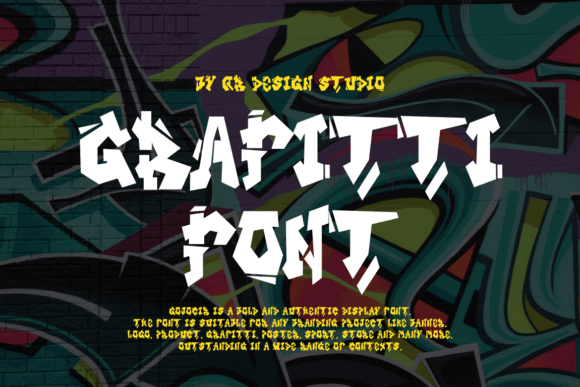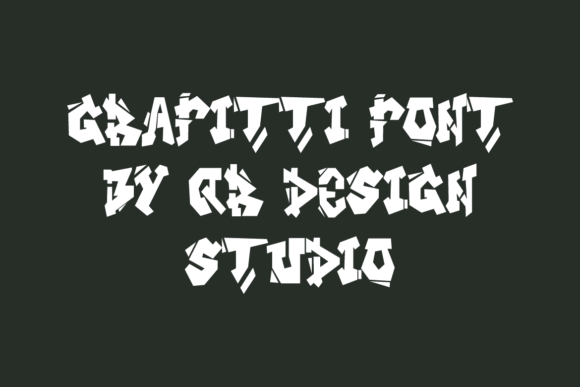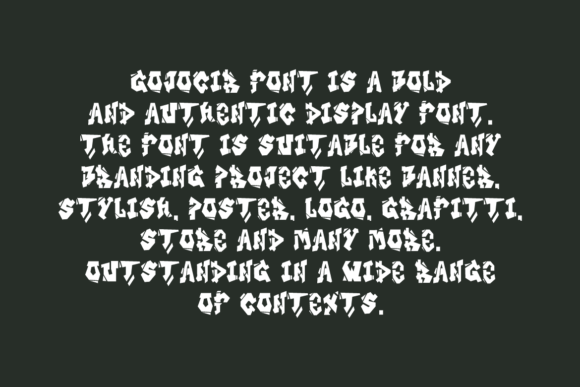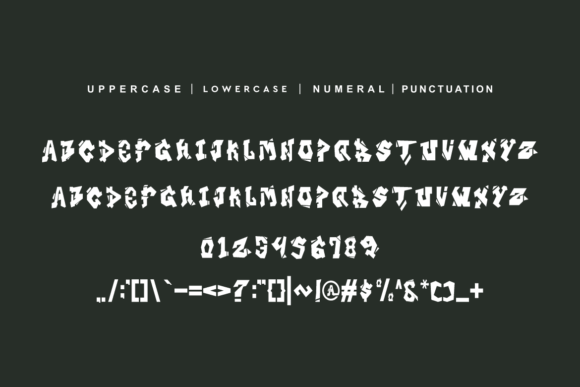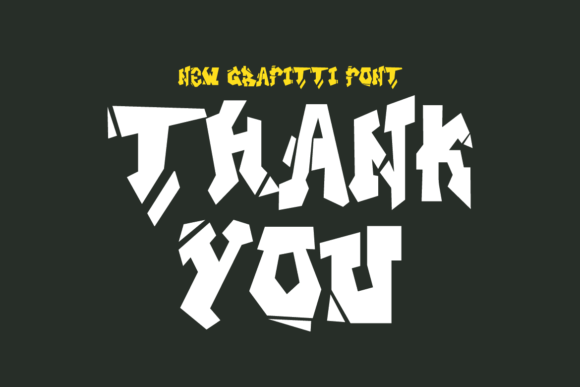
Gojocir Font: Elevate Your Creativity with this Unique Display Font
Gojocir is an incredibly unique display font that has been masterfully designed to become a true favorite among designers and crafters. With its distinctive style, this font has the potential to bring each of your creative ideas to the highest level, making it an essential addition to your typography collection.
The Design Behind Gojocir
Gojocir’s design is a testament to the creativity and skill of its creator. Every aspect of this font, from its letterforms to its spacing, has been carefully crafted to create a visually stunning effect. The result is a font that is both elegant and attention-grabbing, making it perfect for a wide range of creative projects.
What Makes Gojocir Stand Out
So, what sets Gojocir apart from other display fonts on the market? Here are just a few of its key features:
- Unique letterforms: Gojocir’s letters are unlike any you’ve seen before. With their bold lines, curves, and angles, they add a touch of sophistication and style to any design.
- Excellent legibility: Despite its unique design, Gojocir remains highly legible, even at smaller sizes. This makes it perfect for use in a variety of contexts, from headings and titles to body text.
- High versatility: Gojocir is a highly versatile font that can be used in a wide range of creative projects, from branding and advertising to packaging and web design.
Using Gojocir in Your Designs
So, how can you use Gojocir to elevate your creative projects? Here are a few ideas to get you started:
- Create stunning headings and titles: Gojocir’s bold, eye-catching design makes it perfect for use in headings and titles. Use it to add a touch of style and sophistication to your designs.
- Add a touch of elegance to your branding: If you’re looking to create a luxurious, high-end brand, Gojocir is the perfect font for you. Its elegant design and high legibility make it perfect for use in logos, business cards, and other branding materials.
- Make your packaging stand out: Gojocir’s unique design makes it perfect for use in packaging. Use it to add a touch of style and sophistication to your product labels, boxes, and other packaging materials.
Tips for Getting the Most out of Gojocir
To get the most out of Gojocir, here are a few tips to keep in mind:
- Experiment with different sizes and colors: Gojocir looks great in a variety of sizes and colors. Experiment with different combinations to find the one that works best for your design.
- Pair it with other fonts: Gojocir can be paired with a variety of other fonts to create a unique and visually appealing effect. Try pairing it with a clean sans-serif font for a bold, modern look.
- Use it sparingly: While Gojocir is a beautiful font, it can be overwhelming if used too much. Use it sparingly to add a touch of style and sophistication to your designs.
Gojocir is an incredibly unique display font that has the potential to bring each of your creative ideas to the highest level. With its distinctive style, excellent legibility, and high versatility, it’s perfect for use in a wide range of creative projects. Whether you’re a designer, crafter, or simply someone who appreciates great typography, Gojocir is an essential addition to your font collection.